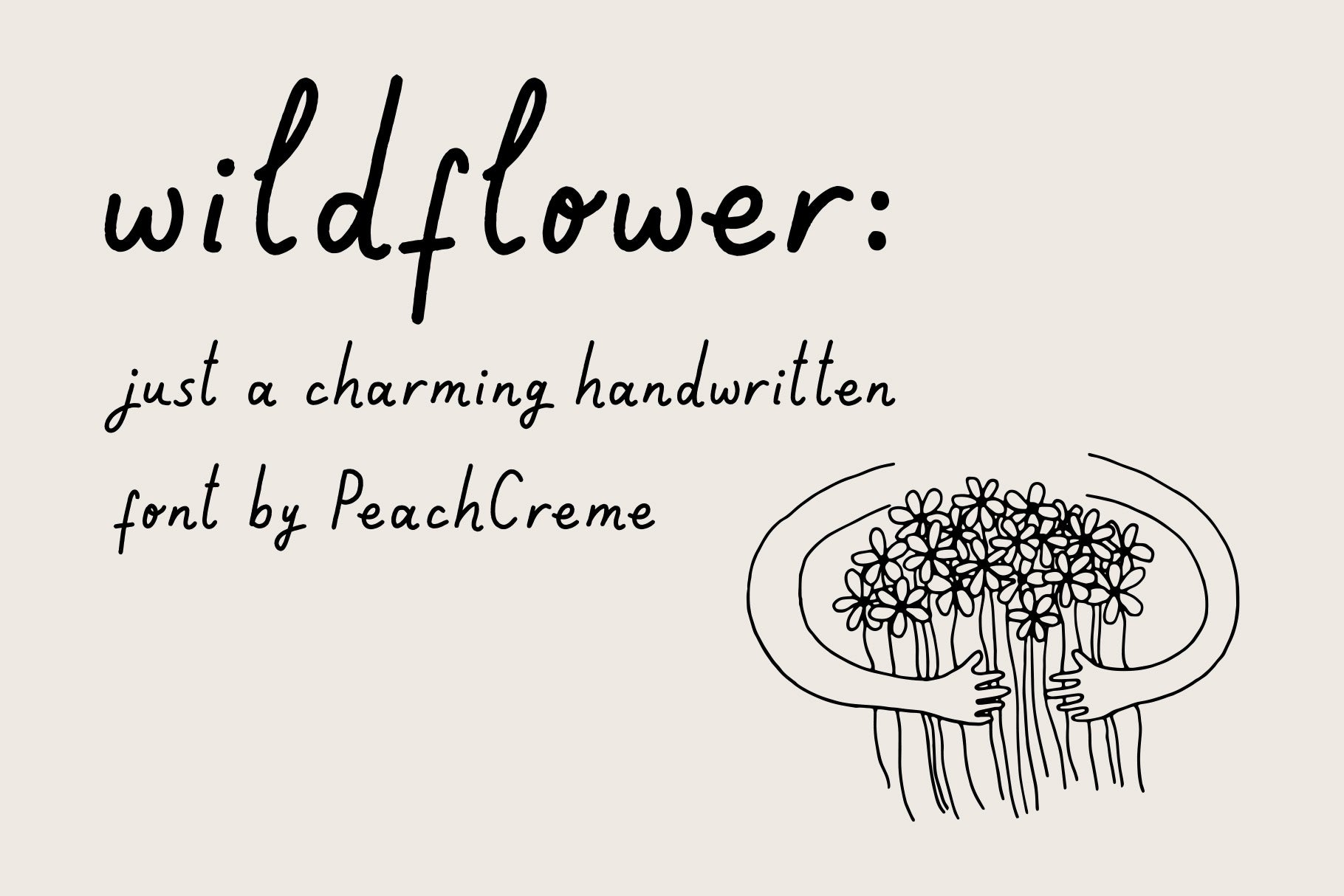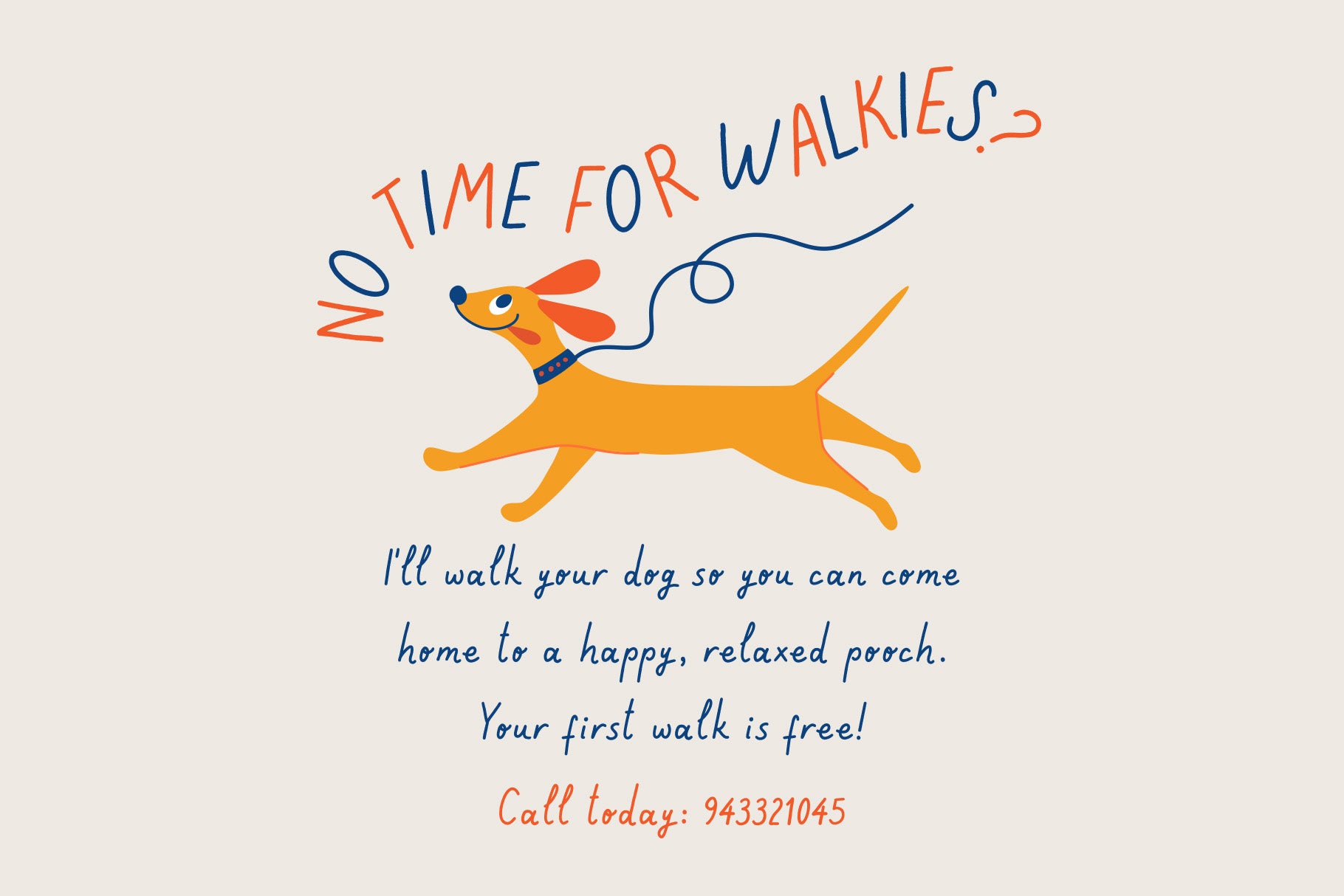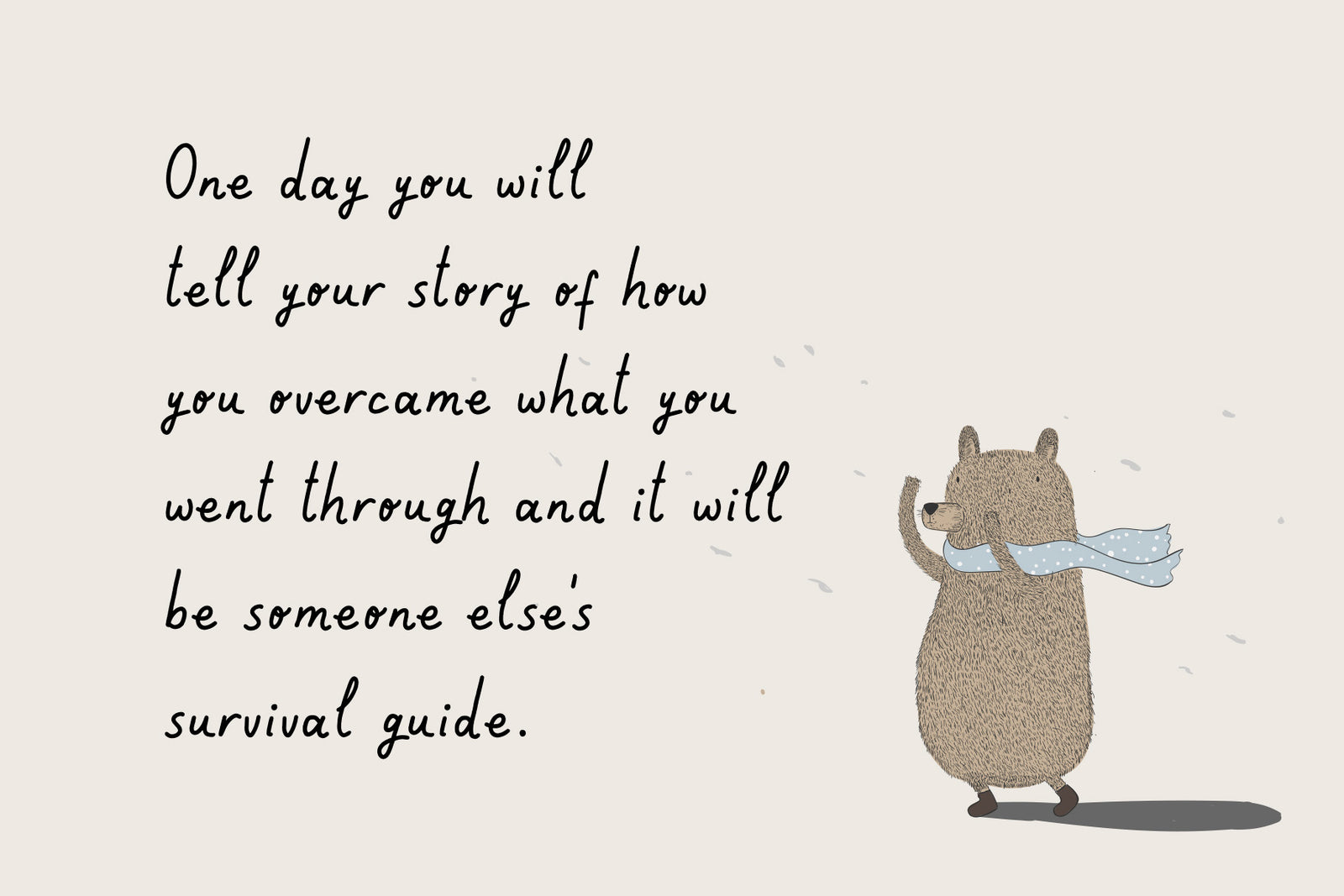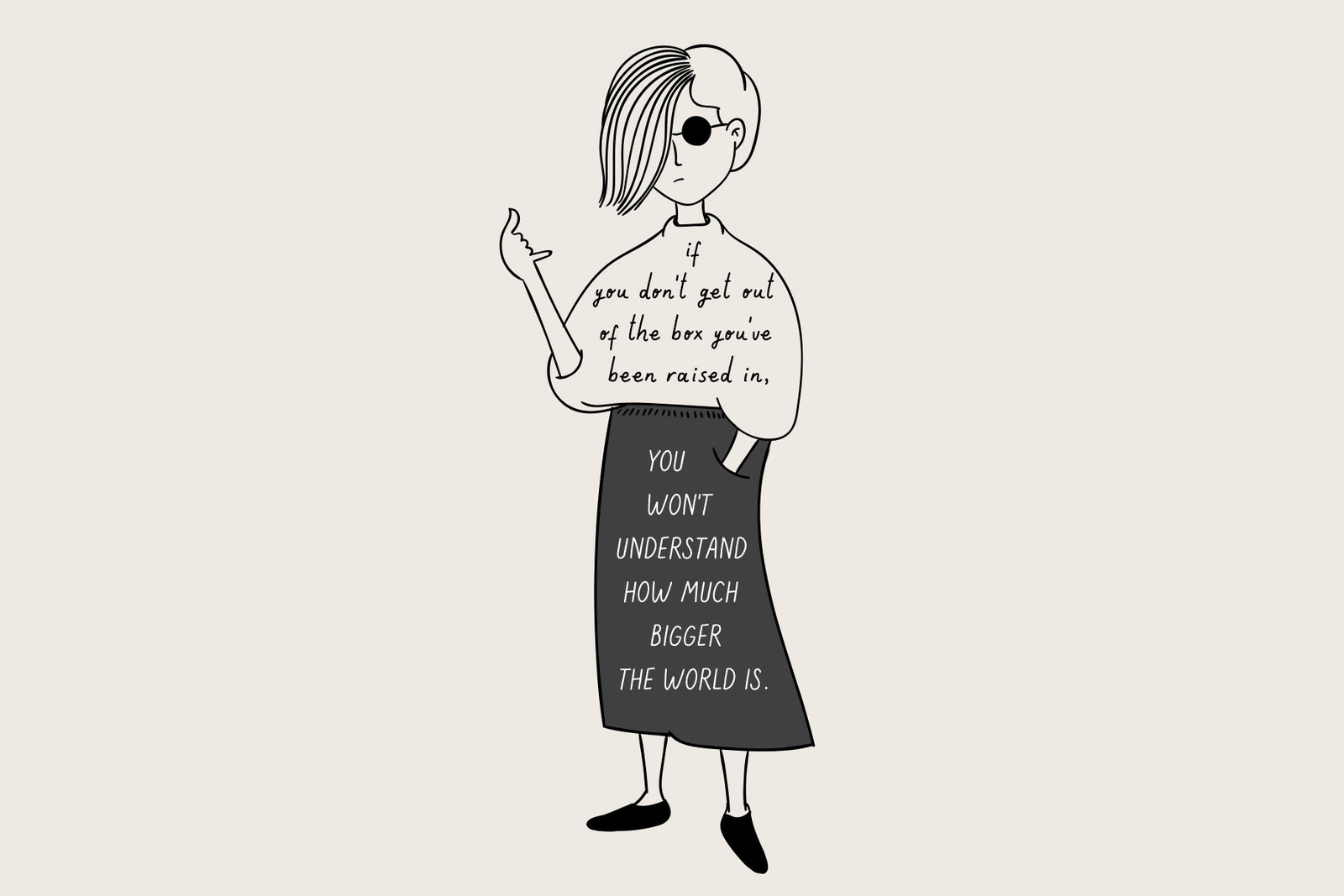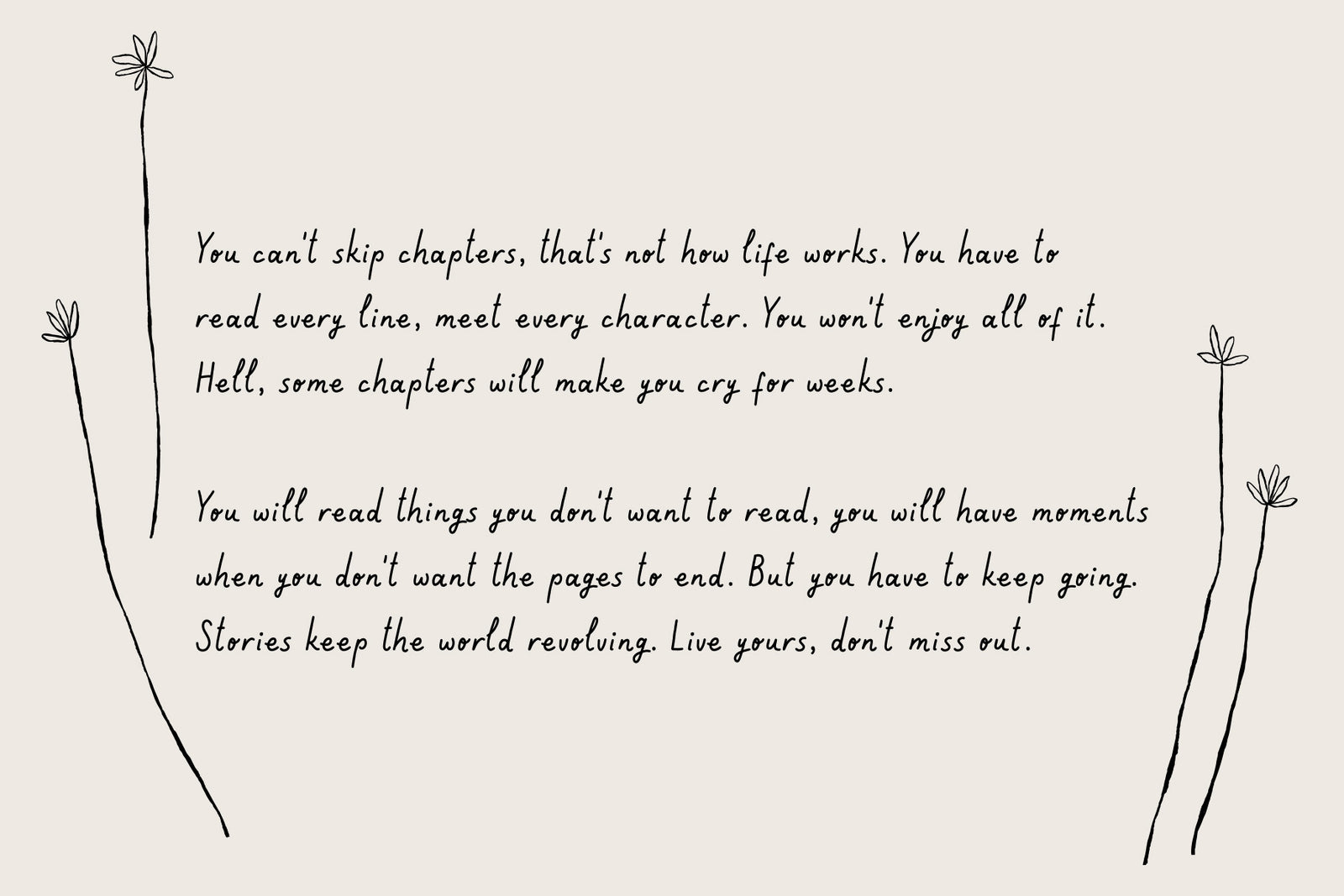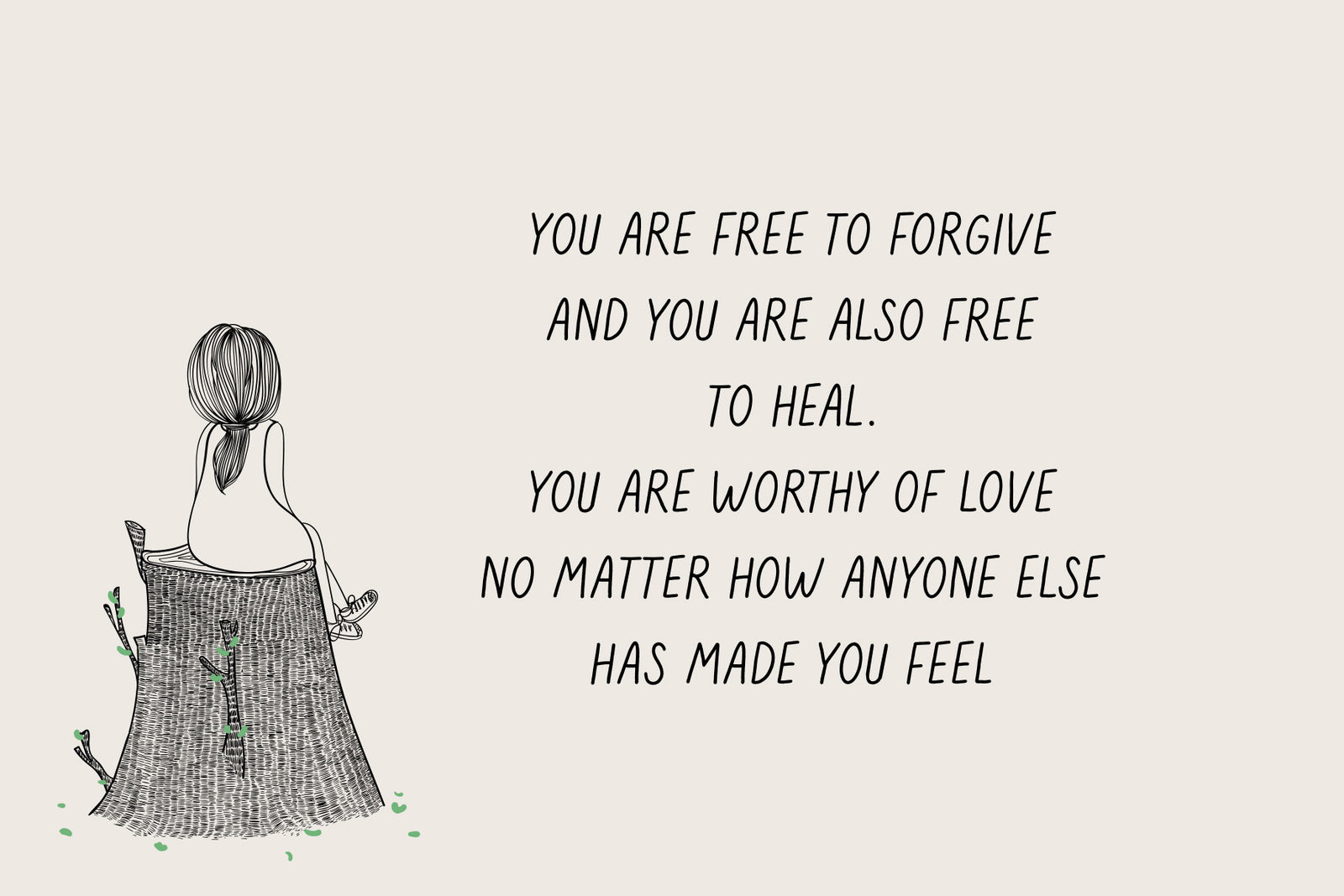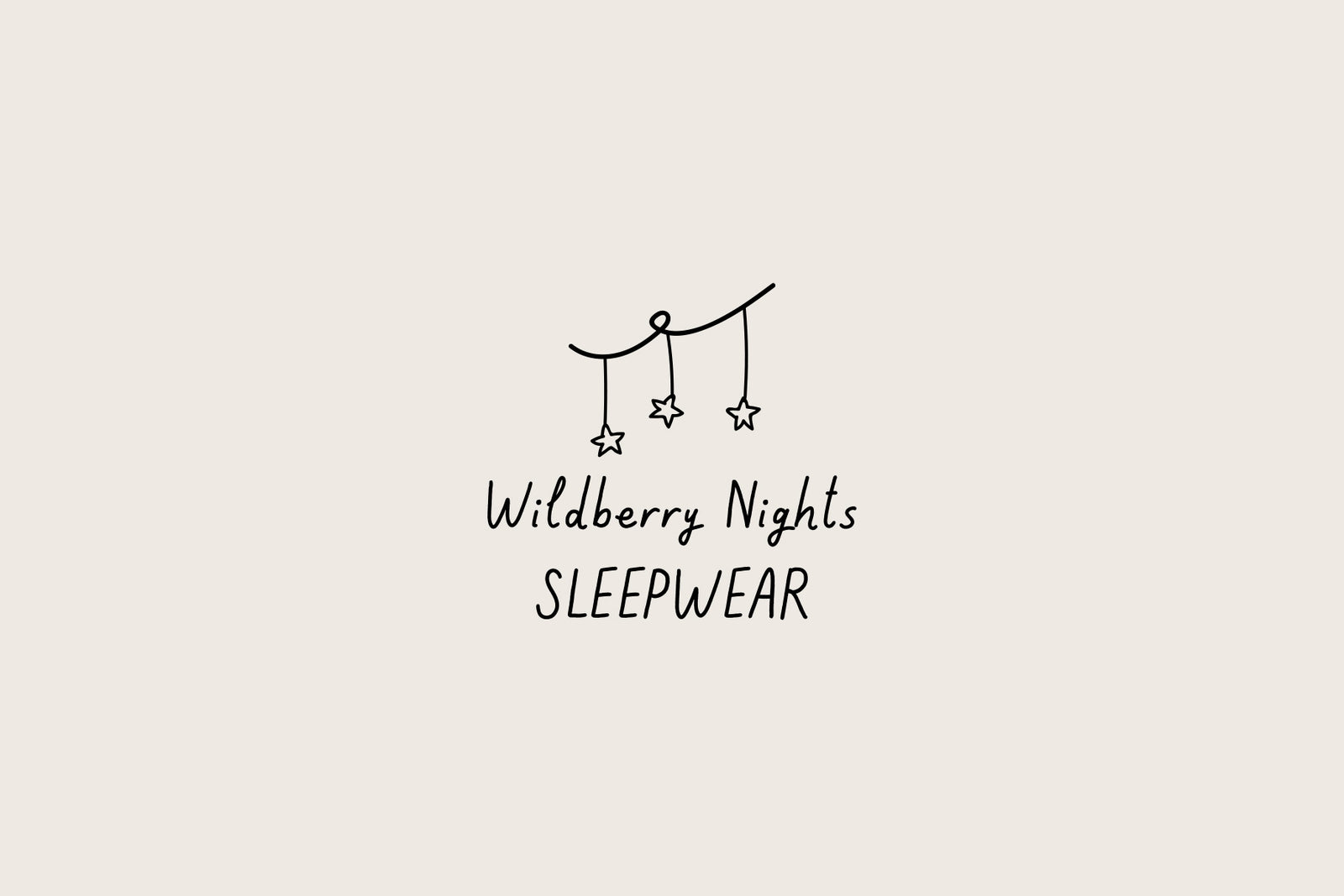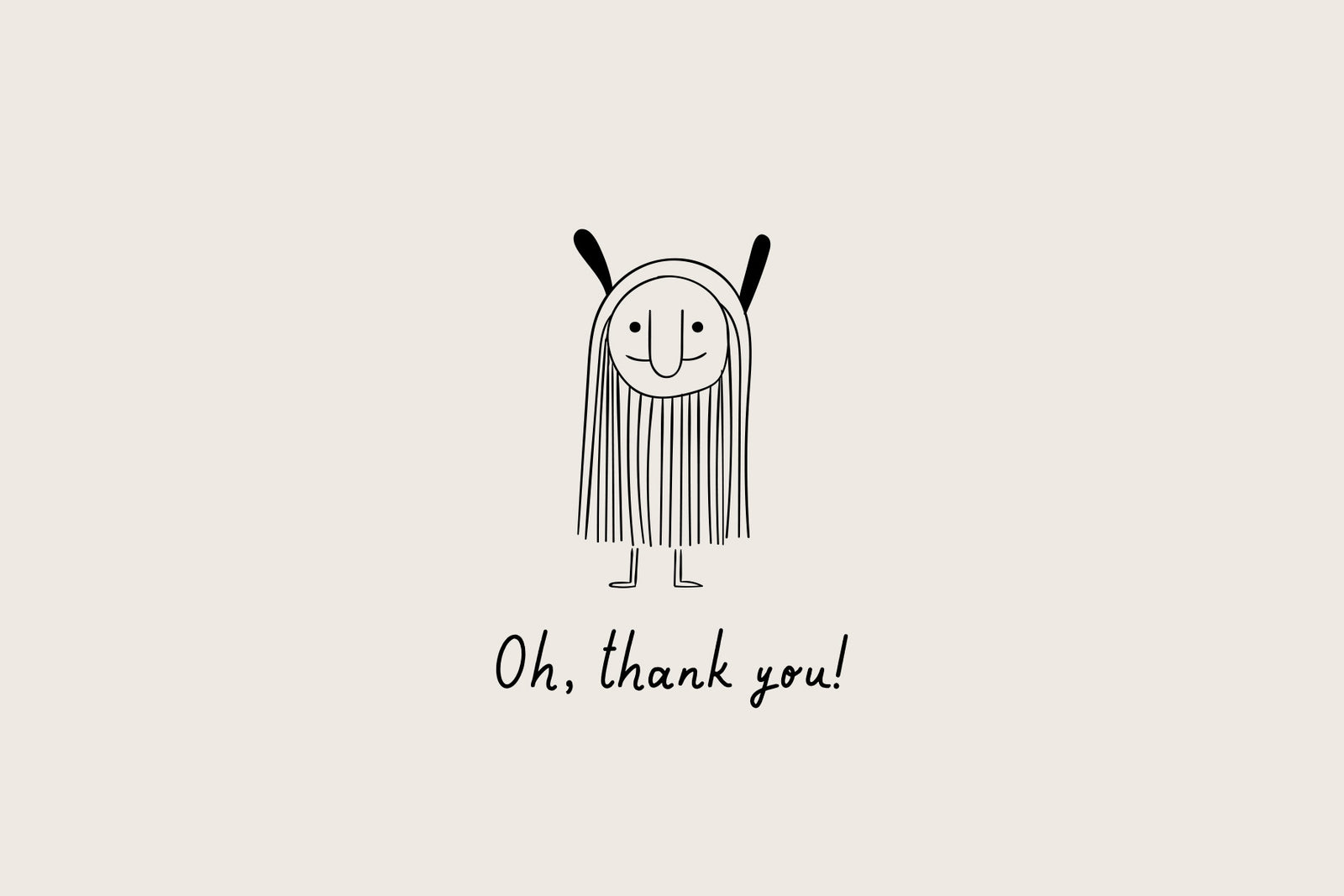
wildflower: charming font
Bonjour, and we are pleased to present "Wildflower"! A cheery, little hand-lettered typeface that has an endearing and reassuring air. Ideal for making banners, logos, cards, and packaging, among other things. You may use its endearing and friendly personality to offer your work a genuine, one-of-a-kind vibe.